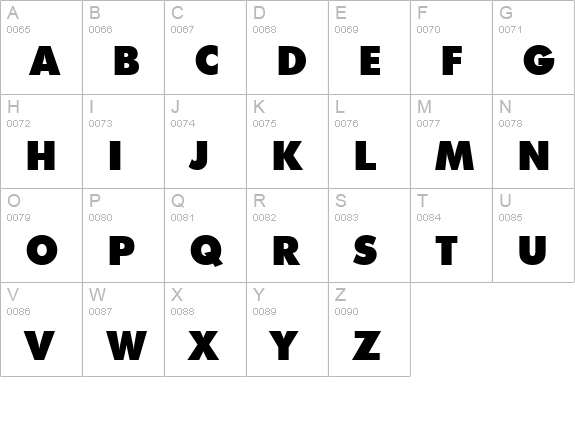
Introducing Raiders font, a bold and adventurous typeface that encapsulates the spirit of exploration and daring. This font is designed to make a statement, with its strong and commanding letterforms that demand attention. Raiders font is perfect for any project that requires a touch of boldness and adventure, whether it's a logo, headline, or poster. What sets Raiders font apart is not just its striking aesthetics, but also its accessibility. We believe that creativity should be free, and that's why Raiders font is freely available to download at FontsMarket.com. We understand that designers and creatives deserve the freedom to express themselves without any barriers, and Raiders font is our way of supporting that vision. With its versatile nature, Raiders font can be used for a wide range of design projects. Its powerful presence and modern appeal make it ideal for branding, packaging, advertising, and editorial design. Whether you're designing for a rugged outdoor brand or creating a visually captivating website, Raiders font will bring your ideas to life with its distinct character and charm. The attention to detail in Raiders font is evident in its carefully crafted letterforms. Each stroke and curve is meticulously designed to create a harmonious balance between strength and elegance. The result is a font that exudes confidence and sophistication, while maintaining a sense of approachability. Raiders font is not just a typographic tool; it's a statement of individuality and creativity. It empowers designers to break free from the norm and explore new territories in their design journeys. So, if you're ready to embark on a design adventure, download Raiders font for free at FontsMarket.com and let your imagination run wild.